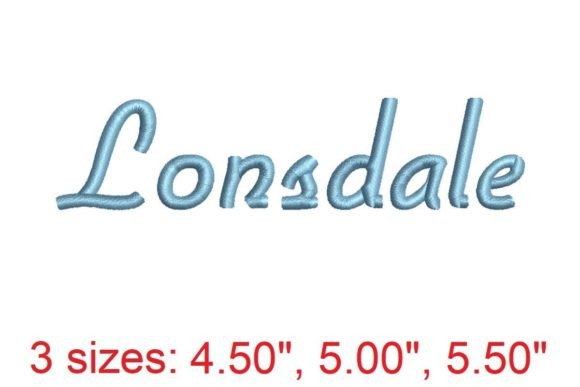
Lonsdale Embroidery Font Review
As an embroidery designer with years of experience, I've come across countless machine embroidery designs, but Lonsdale stands out for its elegance and versatility. This Creative Fabrica embroidery design is perfect for handmade products that carry emotional weight, from baby blankets to wedding towels. Its soft, decorative style adds a touch of warmth that feels both classic and modern.
The First Impression: Softness and Detail
From the moment I opened the Lonsdale embroidery file, I was struck by its visual softness. The font has a gentle curve and delicate lines that make it ideal for sentimental projects. Whether you're creating a personalized gift or a custom home decor piece, Lonsdale exudes a sense of charm that feels handcrafted. Its intricate details are clear and well-balanced, making it suitable for both simple and complex designs.
This font works beautifully on a range of fabrics, from light cotton to thick blankets. Its design is not overly bold, which makes it perfect for items like pillow covers, aprons, and tote bags where subtlety matters. It also lends itself well to seasonal themes, whether you're crafting for back-to-school, holidays, or weddings.
How Lonsdale Can Be Used in Real Projects
Lonsdale is incredibly versatile when it comes to handmade products. Here are some of the ways it can be used:
- Baby Embroidery: Use Lonsdale to create name tags, onesies, or baby blankets with a soft, personal touch.
- Wedding Gifts: Add names, dates, or initials to towels, table linens, or pillow covers for a romantic and elegant finish.
- Family Keepsakes: Create personalized items like family pillows or nursery decor that will be cherished for years.
- Nursery Decor: Lonsdale’s gentle look pairs perfectly with baby-themed projects, offering a cozy and stylish option.
- Embroidered Towels and Pillow Covers: The font’s detail level ensures that even small text remains legible and beautiful.
- Blanket Embroidery: Lonsdale adds a refined touch to throw blankets, making them stand out as unique, handmade products.
- Aprons and Tote Bags: These everyday items become special with Lonsdale’s subtle yet striking design.
- Personalized Home Decor: From wall art to custom boxes, Lonsdale elevates any project with a touch of class.
- Craft Fair Products: As an Etsy seller or small shop product creator, Lonsdale helps you offer unique, high-quality items.
- Commercial Embroidery: With its PES file format compatibility, Lonsdale is ideal for larger-scale projects and bulk orders.
Practical Concerns for Handmade Product Creators
While Lonsdale is visually appealing, there are several practical considerations to keep in mind when using it for your projects:
- Small Lettering: Ensure that the font size is appropriate for your fabric type and project. Small lettering may require additional stabilizer support.
- Dense Details: Check the stitch density to avoid puckering or distortion, especially on stretchy fabrics.
- Textured Towels: Lonsdale works well on towels, but you may need to adjust your hoop size and stabilizer choice for best results.
- Stretchy Baby Clothes: Use a tear-away stabilizer to prevent stretching during stitching.
- Thick Blankets: Consider adjusting the stitch count if working with heavy materials to maintain quality.
- Dark Fabric: Choose thread colors that contrast well with dark backgrounds to ensure visibility.
- Thread Color Contrast: Test different thread options before finalizing your design for maximum impact.
- Stabilizer Choice: Select the right stabilizer based on your fabric type to maintain the integrity of the design.
Impact on Customer Trust and Gift Value
Lonsdale enhances the perceived quality of your finished product, which is crucial for customer trust. When buyers see a well-executed embroidery design, they’re more likely to view your handmade product as valuable and worth purchasing. This is especially important for Etsy sellers and small business owners who rely on positive reviews and repeat customers.
The font’s soft and elegant appearance also adds emotional value to personalized gifts. Whether it’s a baby blanket or a wedding towel, Lonsdale helps convey care and thoughtfulness. This makes your items more giftable and increases buyer engagement, as recipients feel the effort and love behind each piece.
Embroidery Tips for Using Lonsdale
To get the best results with Lonsdale, follow these practical steps:
- Create a Test Stitch-Out: Always test the design on a similar fabric before starting your final project.
- Check Small Details After Stitching: Ensure that fine lines and curves remain intact after the embroidery process.
- Compare Thread Colors: Choose threads that complement your fabric and enhance the design’s visual appeal.
- Test on Similar Fabric: Confirm how the design looks and feels on the actual material you’ll use.
With careful attention to fabric texture, thread color, and stabilizer choice, Lonsdale can transform your custom embroidery into something truly special. It’s a reliable addition to any digital embroidery file collection and a great tool for anyone looking to create meaningful, high-quality handmade products.